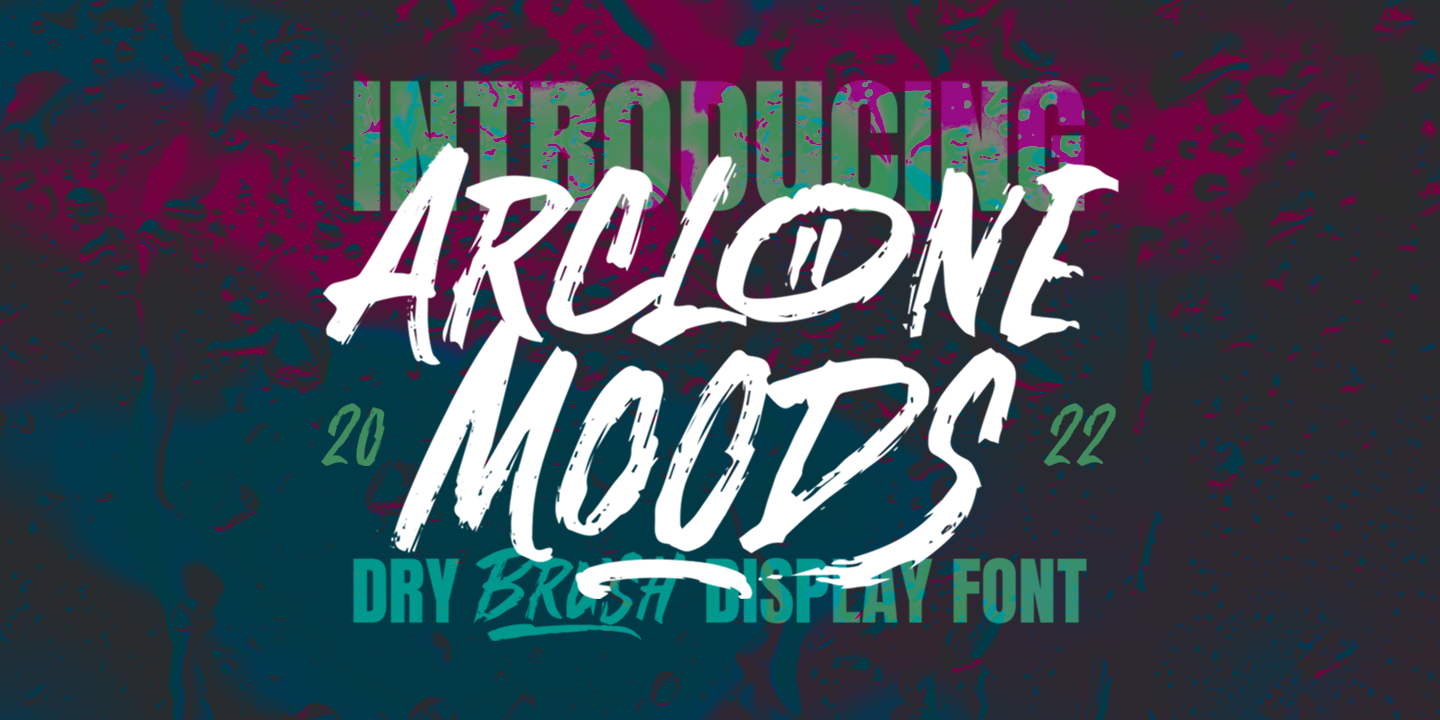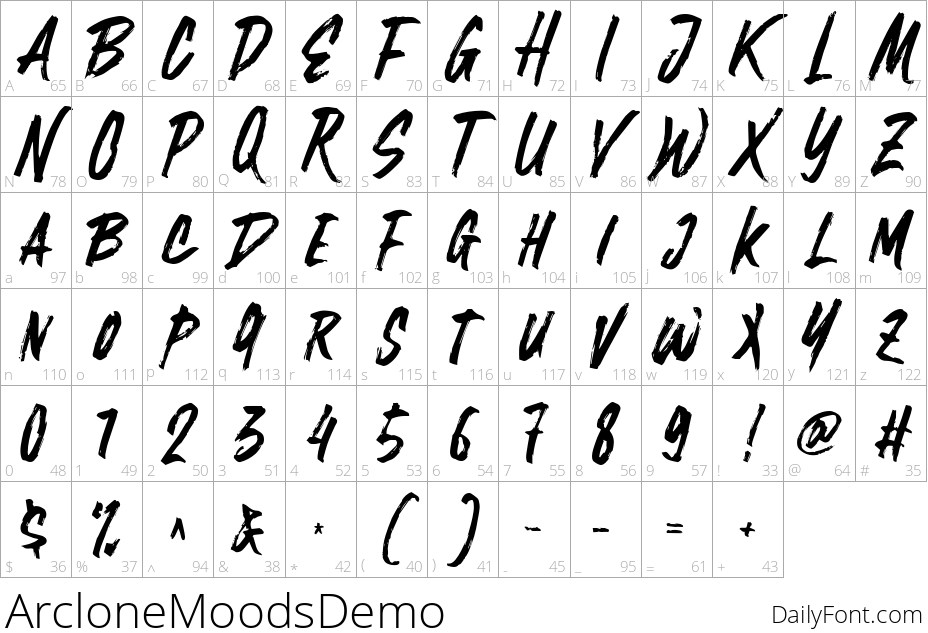
Arclone Moods by Letterhend Studio
"Bold brush-style font with trendy vibes, ideal for projects requiring modern flair and style, perfect for branding, titles, or headlines."